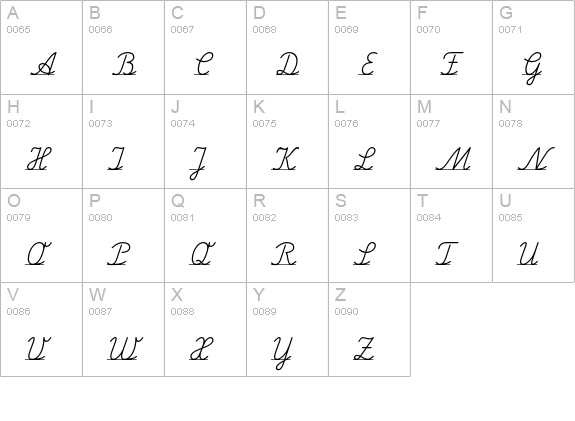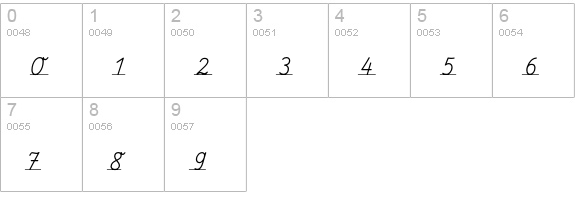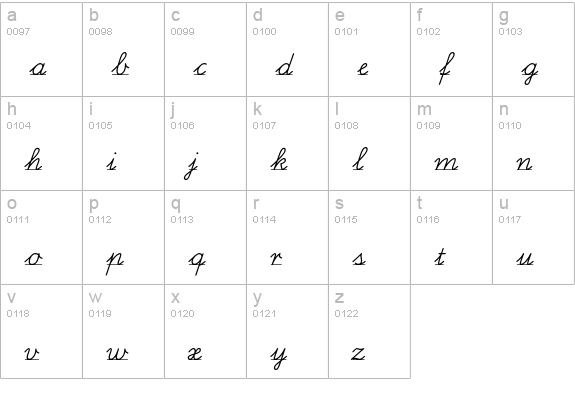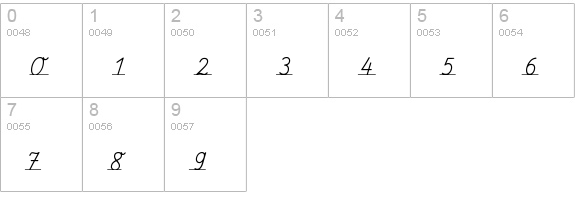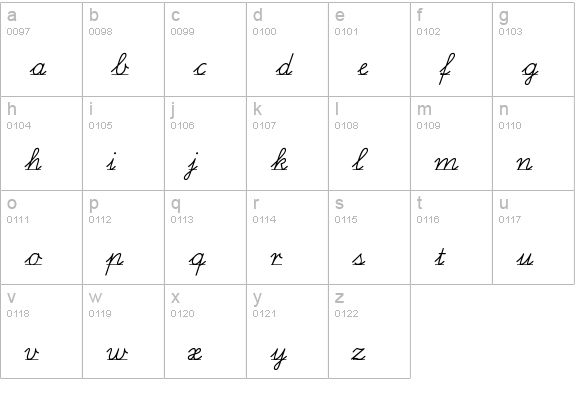
SchulschriftB-L1 Font Details
SchulschriftB-L1 font is a charming and versatile typeface that is sure to capture attention. With its unique blend of elegance and playfulness, this font is perfect for a wide range of creative projects. Designed with legibility in mind, SchulschriftB-L1 font features clean lines and clear letterforms, making it ideal for use in both large and small sizes. Whether you're designing a poster, creating a logo, or crafting a greeting card, this font will add a touch of sophistication to your work. One of the best things about SchulschriftB-L1 font is that it is free! That's right, this amazing font is freely available to download at FontsMarket.com. This means that you can use it in personal and commercial projects without any limitations. So go ahead, unleash your creativity and make your designs stand out with SchulschriftB-L1 font.